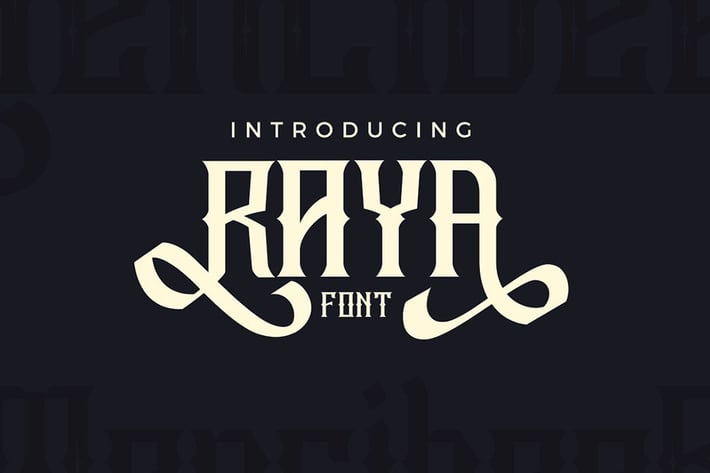
Raya Vintage Swash Font
With ornamental vintage style and lot of swashes you can create realistic headers. It works beautifully for personal branding and advertising.
- A font that is inspired by vintage decorative letters or cards
- 2 basic font versions (regular & inline) + 4 swash font versions